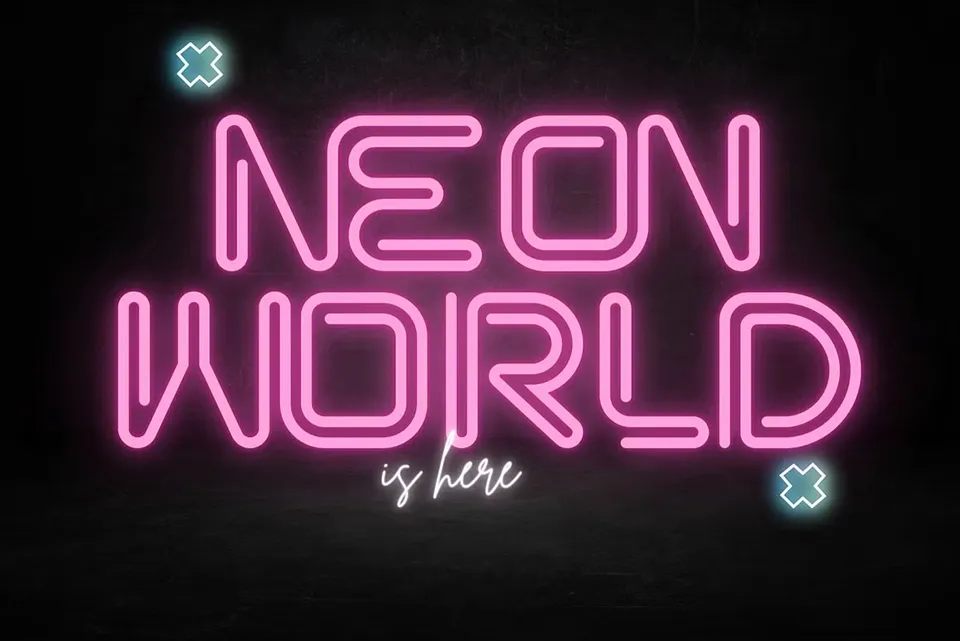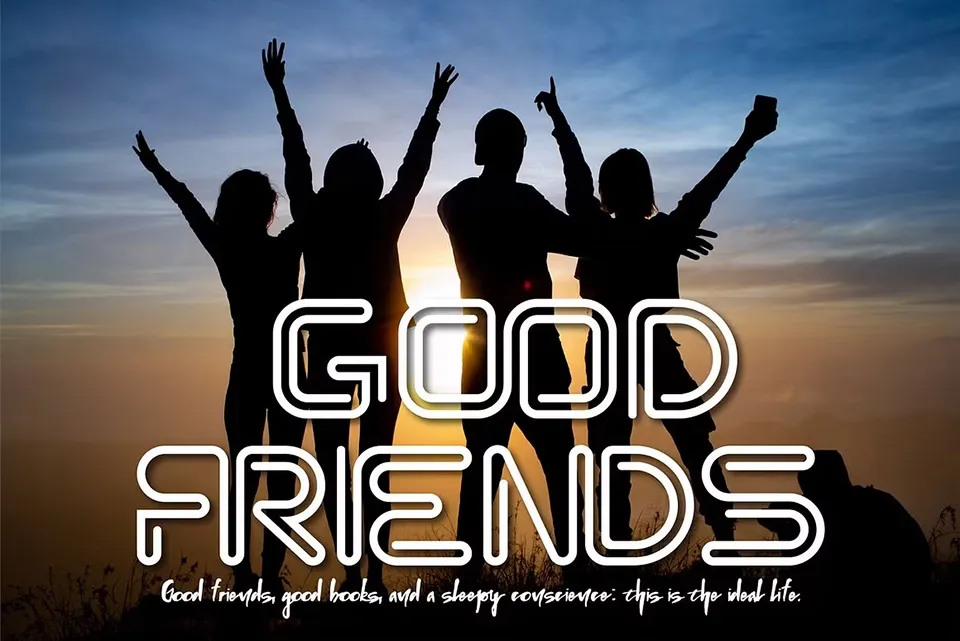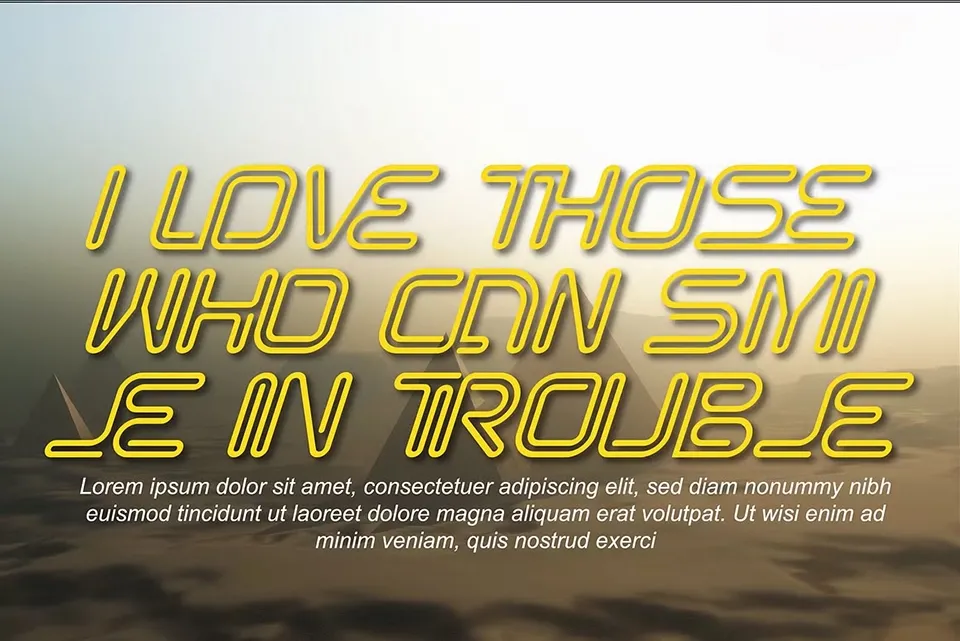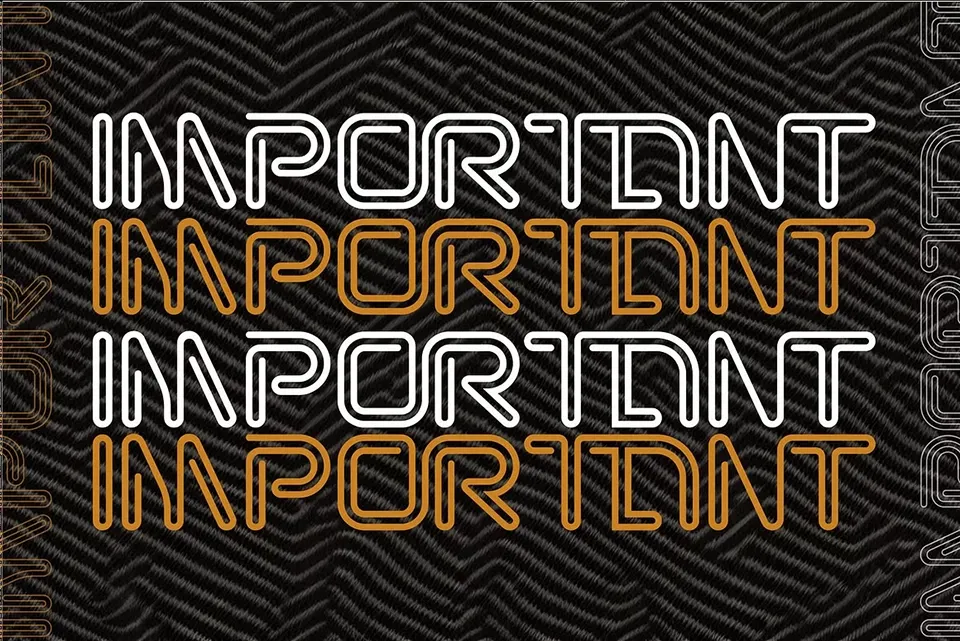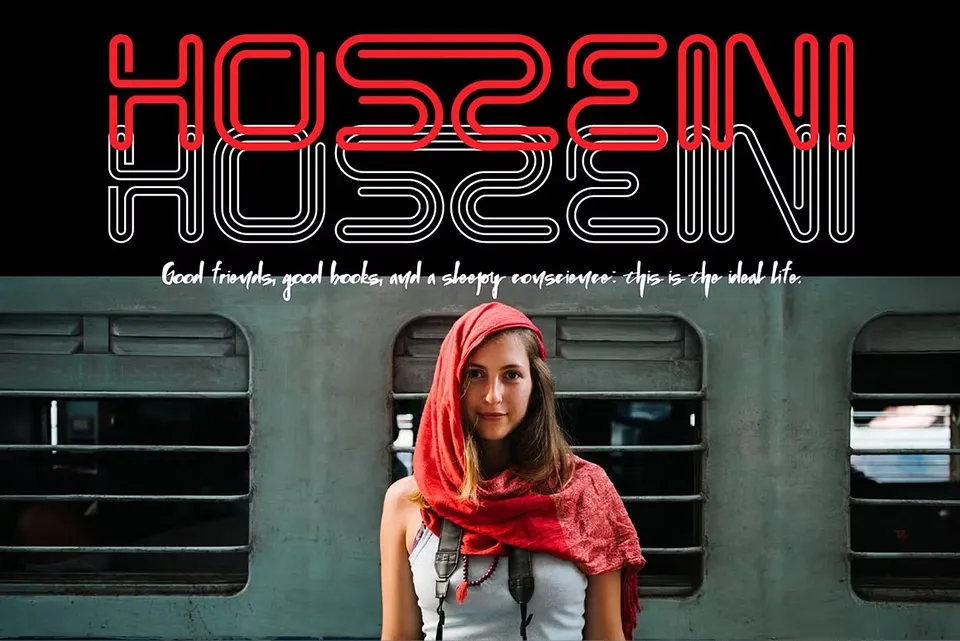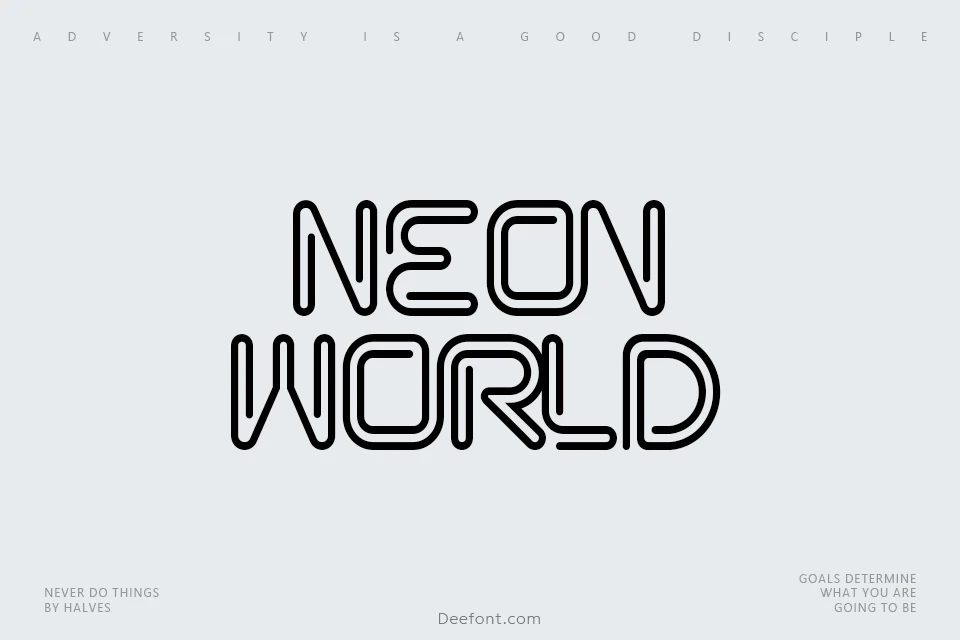
Neon World Font
Neon World Font is a modern display font inspired by real-world neon light signs, featuring minimal letterforms with smooth rounded corners and line-based construction that mimics neon tubes. It is perfect for adding glowing light effects or for designing actual neon signage. This font is ideal for headlines, posters, logos, badges, t-shirts, and more, offering 100 ligatures, alternates, numerals, punctuation, and multilingual support for creative versatility.